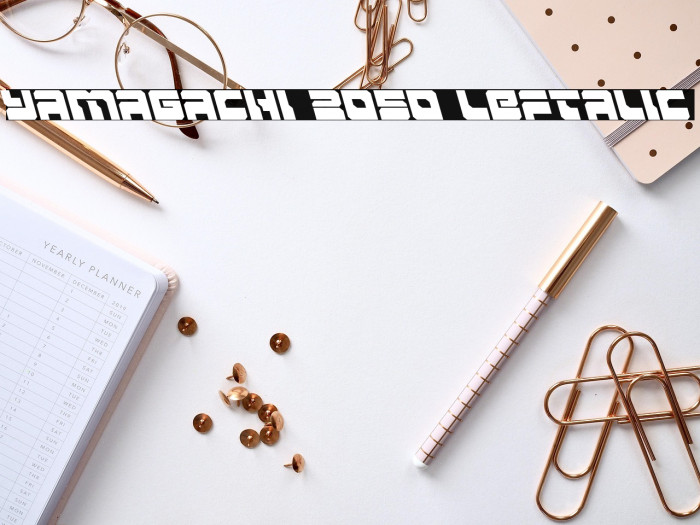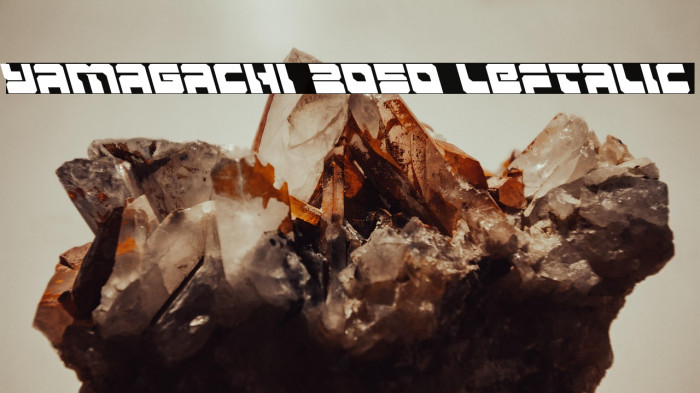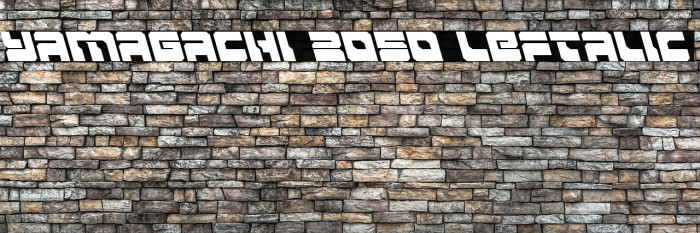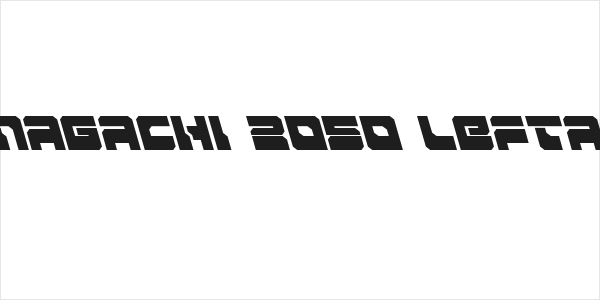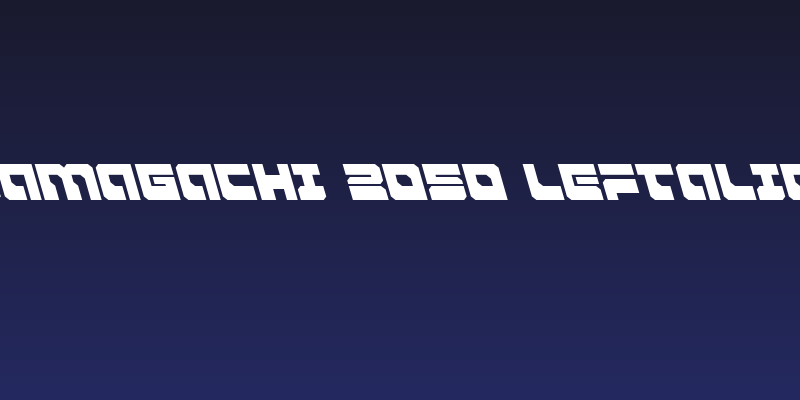
Yamagachi 2050 Leftalic Font
Yamagachi 2050 Leftalic Description
This font features a bold, futuristic design with sharp angles and geometric shapes. The characters are heavily stylized, giving them a unique, modern appearance that suggests a technological or sci-fi theme. The uppercase and lowercase letters maintain a consistent style, with a blocky, angular form that is both eye-catching and distinctive. The numbers and special characters follow the same design principles, ensuring uniformity across all glyphs. The font's strong visual impact makes it ideal for projects that require a bold statement.
| Proposed Projects | Ideal for sci-fi movie posters, video game titles, technology branding, and futuristic-themed designs. |